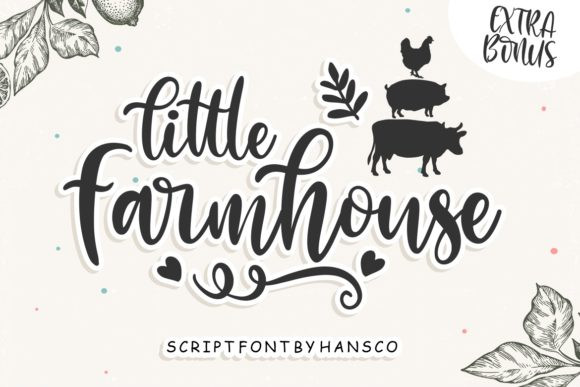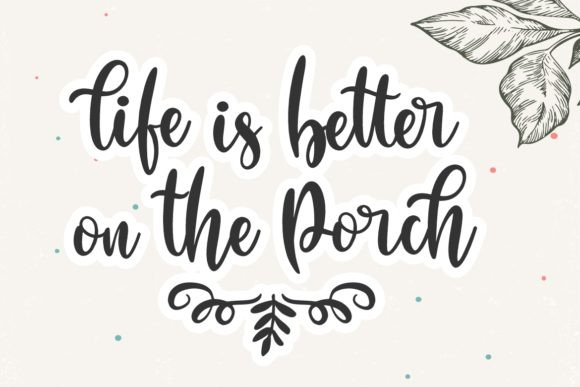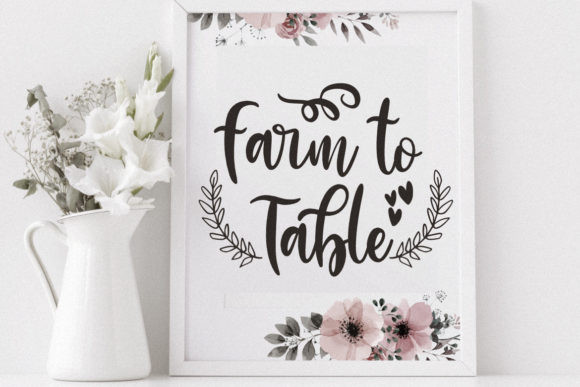
Little Farmhouse Font
Little Farmhouse is a sweet and delicate handwritten font. Dainty and joyful, this font will be ideal for writing wedding invitations, cards or any other design that may need a romantic, personalized touch! This font is PUA encoded which means you can access all of the glyphs and swashes with ease!